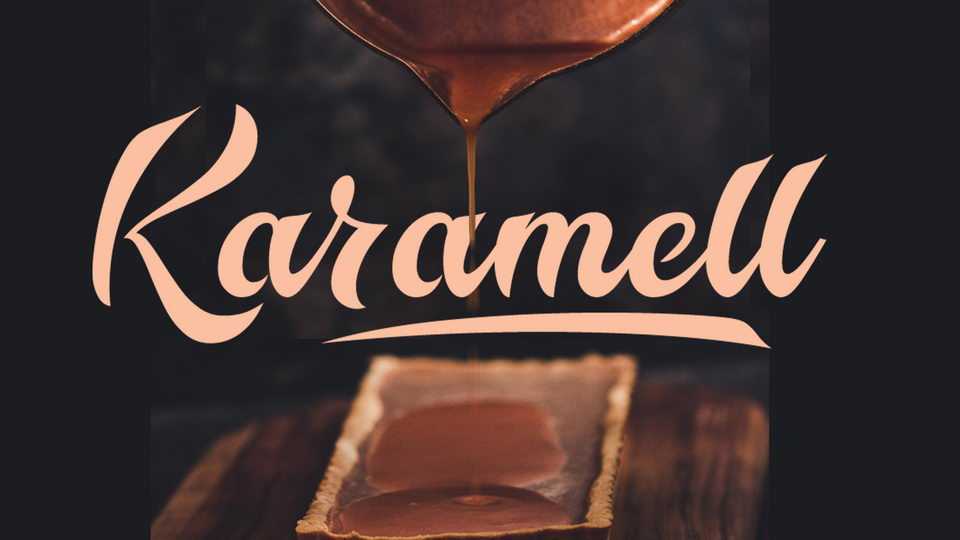
Download Karamell font, a bold and powerful handwritten brush typeface influenced by retro script style. Karamell is perfect for logos, branding, posters, prints and other unique projects.
Designer: Roland Huse